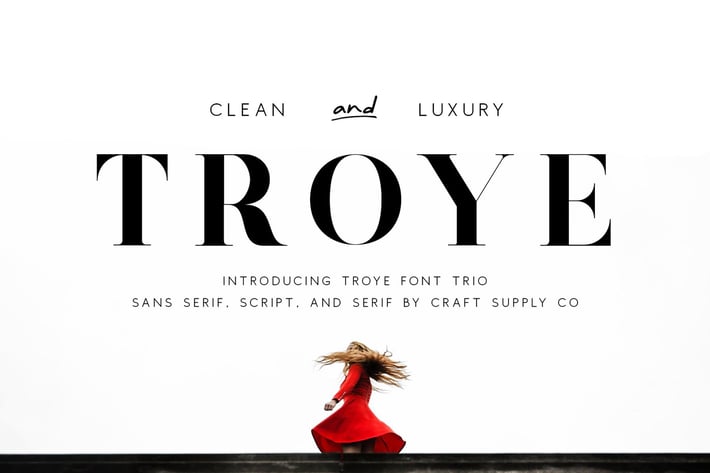
Troye Font Trio - Clean & Luxury
Introducing New Font : Troye Font Trio - Clean & Luxury
Troye Font Trio is a modern serif font, clean sans serif font and script font. Whose design refers us to the style of modern sans serif. The distinctive features of Troye Font Trio are the relatively low contrast of strokes, the slightly squarish shapes of round characters and the emphasized business like simplicity.
Troye Font Trio has been crafted from scratch with a structural logic of its own: a fusion of pure geometry and optical balance. By combining a variety of styles Troye Font Trio is suitable for Logo, greeting cards, quotes, posters, branding, name card, stationary, design title, blog header, art quote, typography
Troye Font Trio also suitable for art, modern envelope lettering or book design, happening style like handdrawn design or watercolor design theme, craft design, any DIY project, book title, wedding font, pop vintage design, or any purpose to make our art/design project look pretty and trendy.